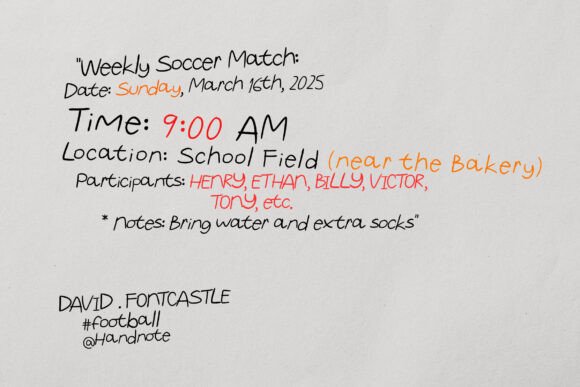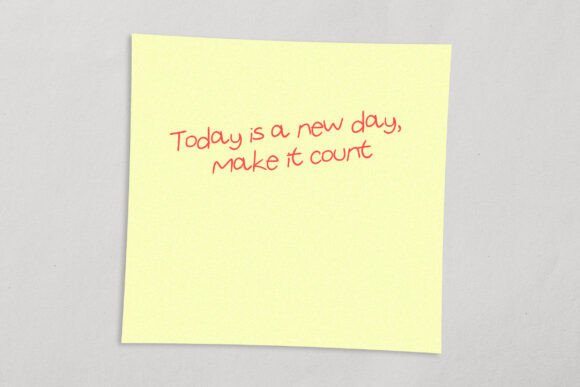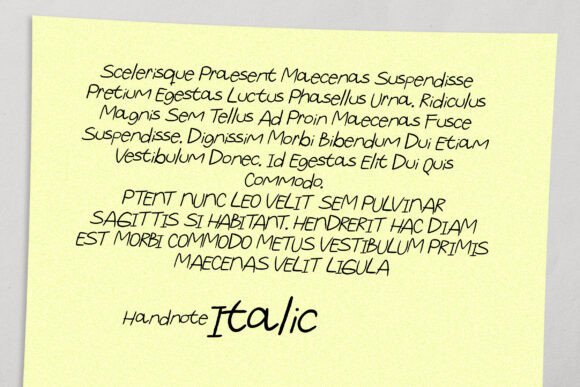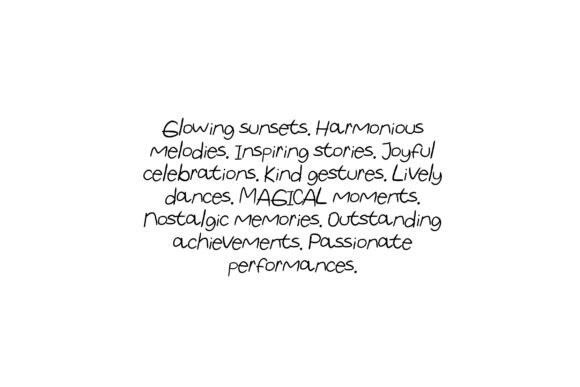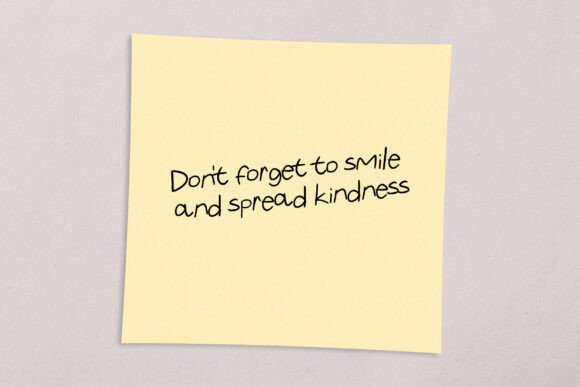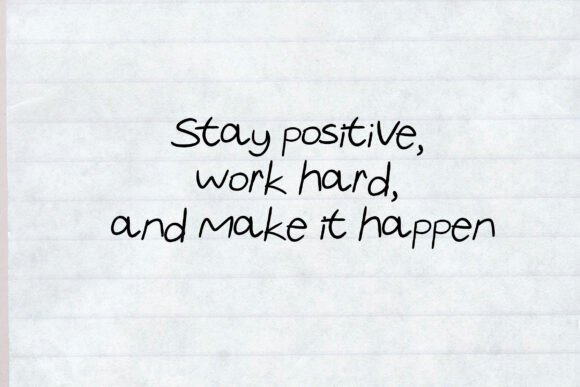
Introducing Handnote Font: The Perfect Handwritten Touch for Your Designs
Are you looking for a font that can add a personal touch to your designs? Do you want to create handwritten notes, quotes, logos, or add a human feel to your projects? Look no further than Handnote Font! In this article, we’ll explore the features and benefits of Handnote, a beautiful handwritten font designed to mimic authentic ballpoint pen handwriting.
What is Handnote Font?
Handnote is a carefully crafted handwritten font that replicates the look and feel of writing with a ballpoint pen. It comes in two versions: regular and oblique. The regular version offers a clean and natural handwriting style, while the oblique version has a more pronounced slant, giving it a sense of movement and fluidity.
Key Features of Handnote Font
- Authentic Handwriting Style: Handnote Font is designed to mimic real ballpoint pen handwriting, making it perfect for creating handwritten notes, quotes, and other design elements.
- Two Font Styles: Handnote comes in regular and oblique versions, allowing you to choose the perfect style for your project.
- Easy to Read: Despite its handwritten nature, Handnote Font is surprisingly easy to read, making it suitable for body text and other applications where legibility is important.
- Versatile: Handnote can be used for a wide range of design projects, from logos and branding to social media graphics, invitations, and more.
Use Cases for Handnote Font
Handnote Font is an incredibly versatile font that can be used in a variety of design projects. Here are some ideas to get you started:
- Handwritten Notes and Quotes: Add a personal touch to your notes and quotes with Handnote Font.
- Logo Design: Use Handnote Font to create a unique and memorable logo for your brand.
- Social Media Graphics: Add a handwritten touch to your social media graphics, such as Instagram stories and Facebook posts.
- Invitations and Stationery: Use Handnote Font to create beautiful invitations, greeting cards, and other stationery items.
- Crafting and Scrapbooking: Handnote Font is perfect for crafters and scrapbookers who want to add a personal touch to their projects.
Tips for Using Handnote Font
Handnote Font is a beautiful and versatile handwritten font that’s perfect for designers and crafters who want to add a personal touch to their projects. With its authentic ballpoint pen handwriting style, two font styles, and ease of use, Handnote Font is sure to become a favorite in your design toolkit. So why not give it a try and see how it can elevate your designs?
Whether you’re creating handwritten notes, quotes, logos, or just adding a handwritten touch to your projects, Handnote Font is the perfect choice. Its unique and authentic style is sure to capture the attention of your audience and leave a lasting impression.